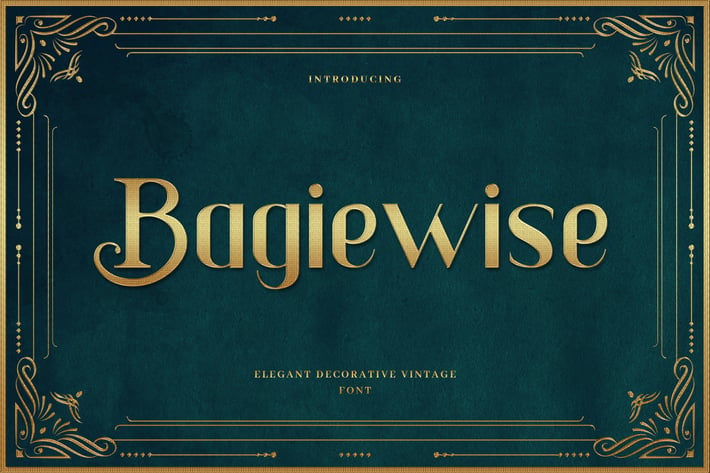
Bagiewise - Luxury Art Deco Typeface
Introducing Bagiewise font. Are you looking for a bold and solid art deco display font that has an elegant and luxury vintage feeling? We can help! Try to download our Bagiewise art deco font. The font is suitable to use for many occasion such as invitation, banner, movie title, brand, event, and many more :)